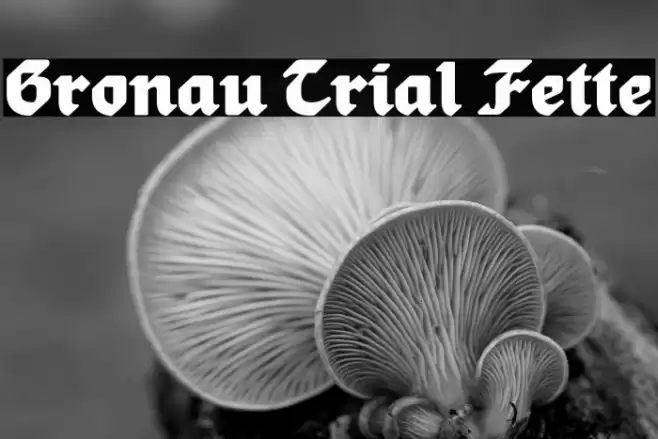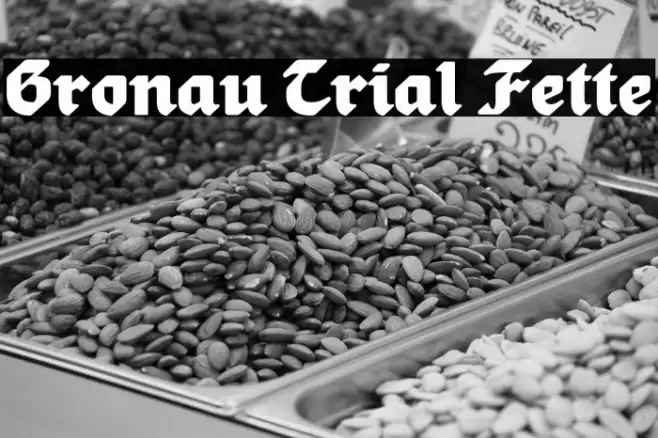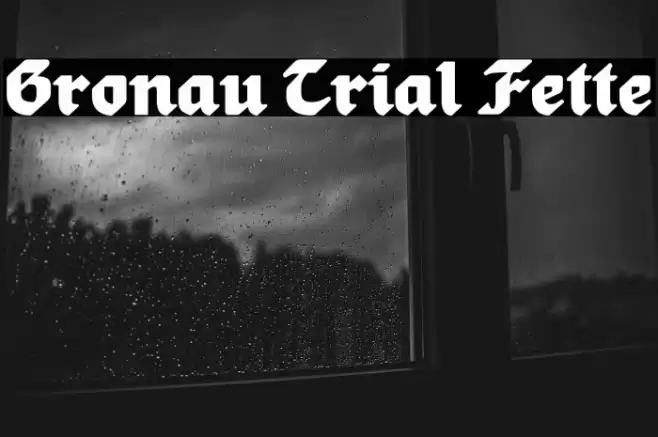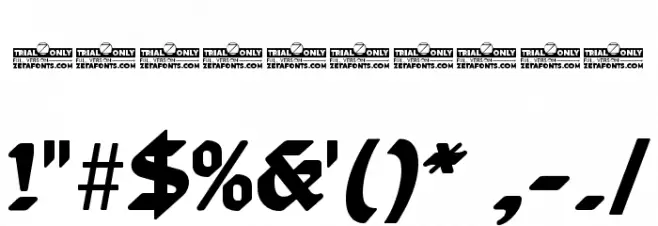
Gronau Trial Fette Font
Gronau Trial Fette Description
This font features a bold and dramatic style with a strong presence, characterized by its thick strokes and sharp angles. It draws inspiration from traditional blackletter typography, offering a sense of historical elegance and authority. The uppercase letters are particularly striking, with intricate details that add to the overall ornate appearance. The lowercase letters maintain a consistent style, ensuring readability while preserving the font's distinctive character. The numerals and special characters are designed to match the boldness and intricacy of the alphabet, making this font suitable for a variety of decorative purposes.
A bold, blackletter-inspired font with thick strokes and sharp angles from Regular fonts.
- Font: Gronau Trial Fette
- Proposed Projects: Ideal for projects requiring a historical or gothic touch, such as event posters, book covers, or branding for luxury products.
- Overall Style: Vintage
- Use Case: Headlines, Logos, Decorative text